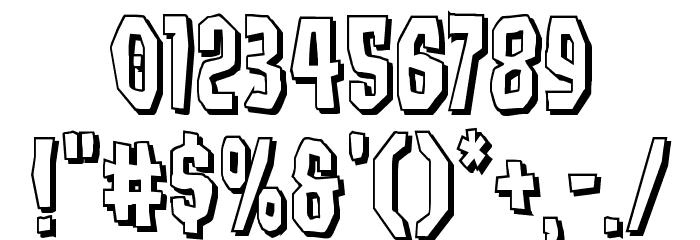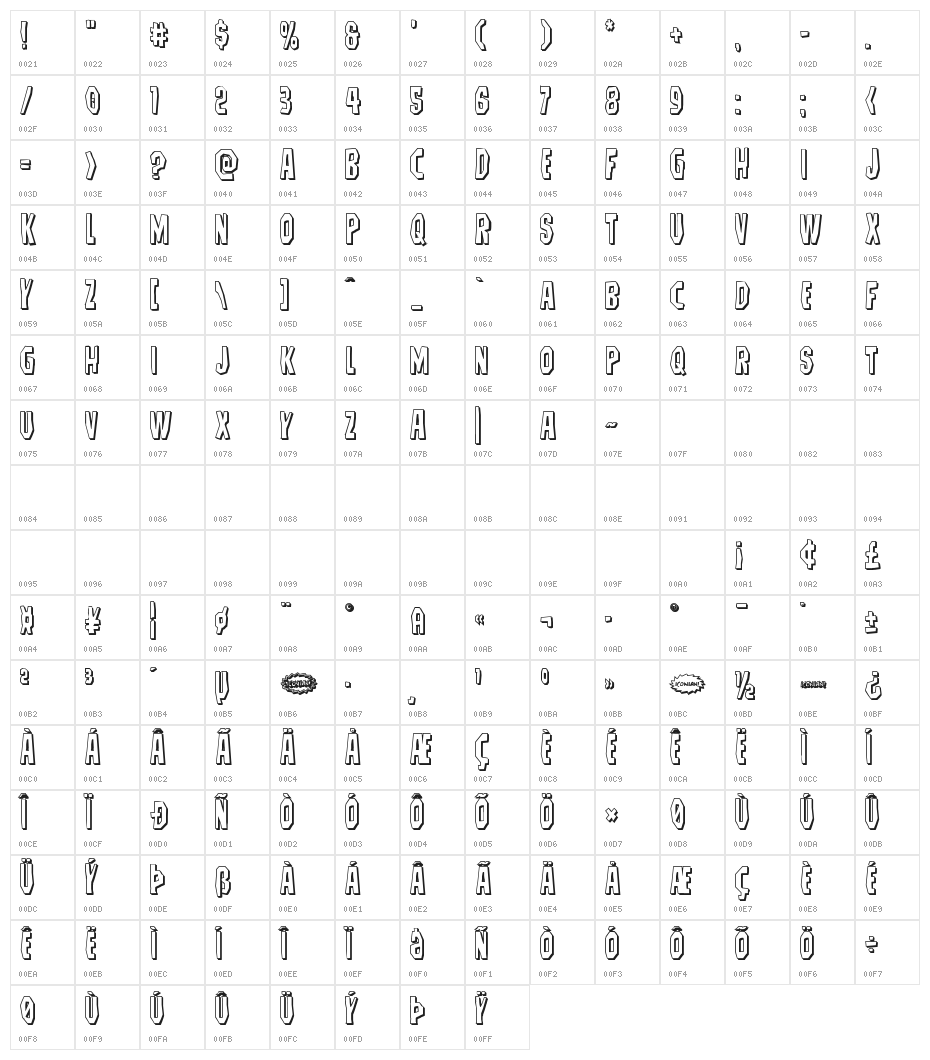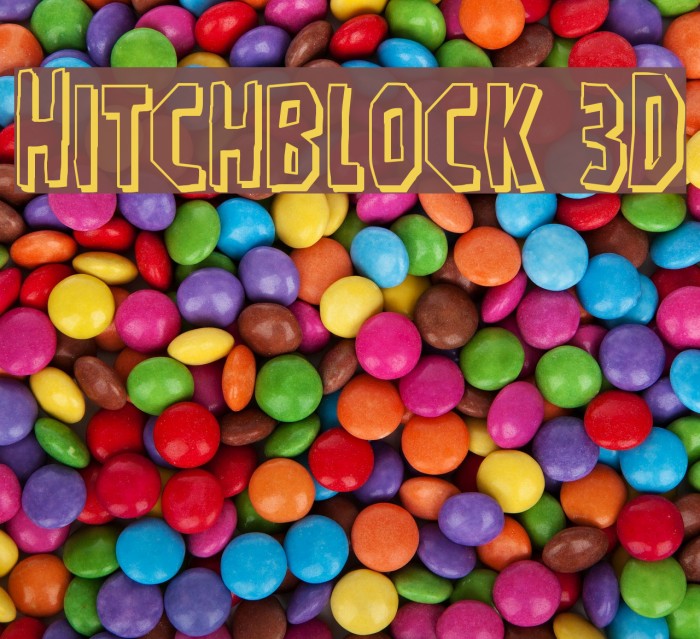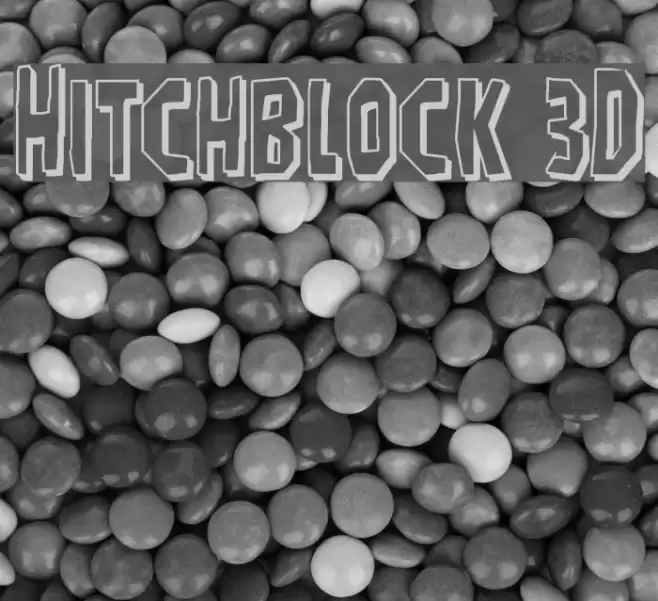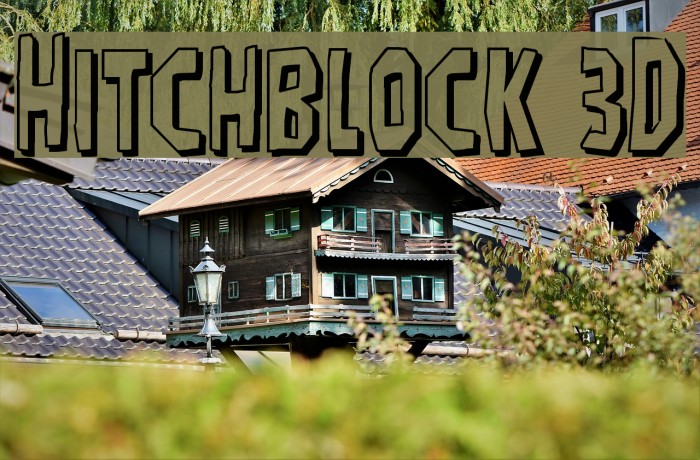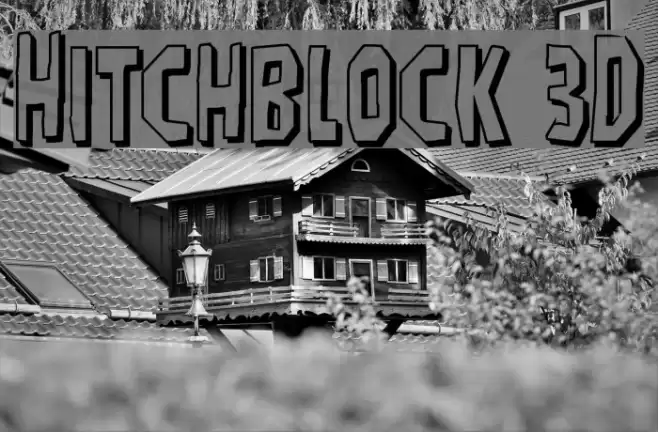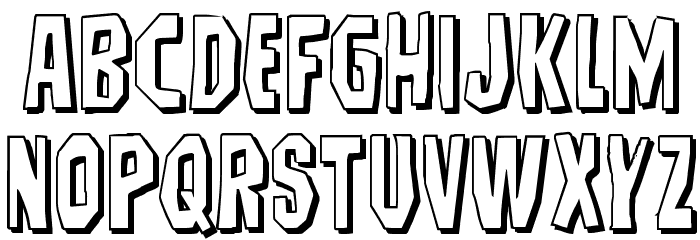
Hitchblock 3D Font
Hitchblock 3D Description
This font features a bold, three-dimensional block style that gives each character a strong and impactful appearance. The letters are uppercase, with a shadow effect that enhances the 3D illusion. The design is geometric and angular, with consistent stroke widths that contribute to its bold presence. The numbers and special characters follow the same style, ensuring uniformity across all elements. This font is ideal for creating eye-catching headlines or titles that need to stand out. Its unique 3D effect makes it suitable for projects that require a modern and dynamic look.
| Proposed Projects | Ideal for posters, logos, video game graphics, and any project requiring a bold, modern look. |